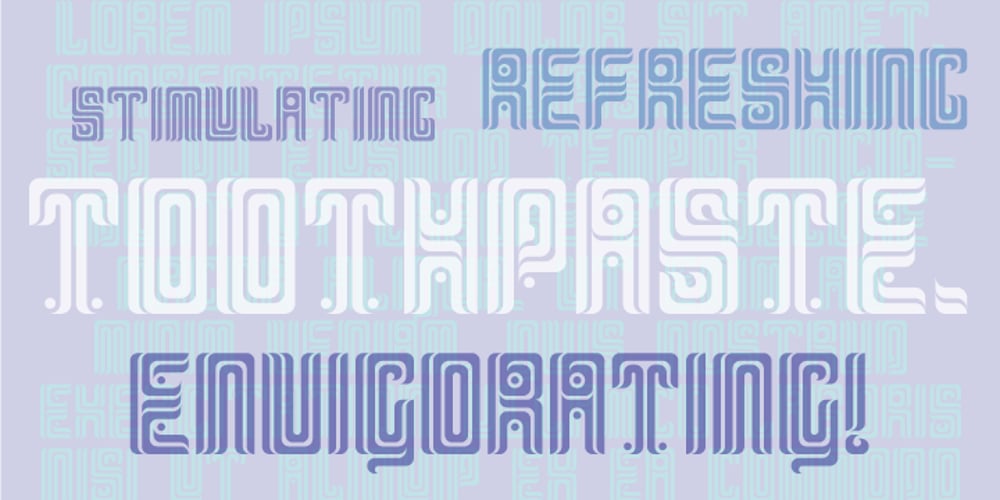
Toothpaste Font Family was designed by Wilson Thomas and published by Funk King. Toothpaste contains 1 styles and family package options. Toothpaste is a fun swirly font with lots of pizzazz and energy.